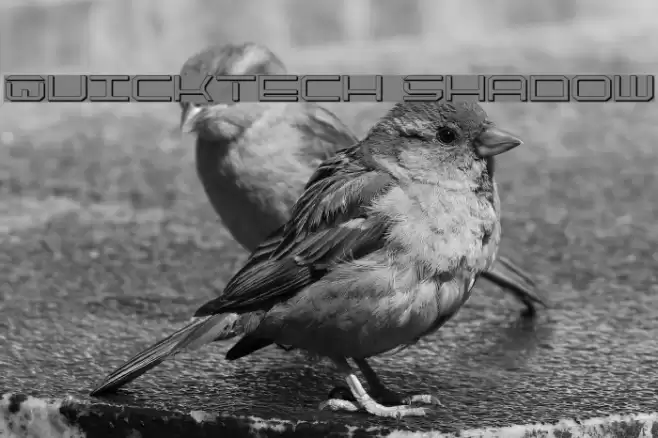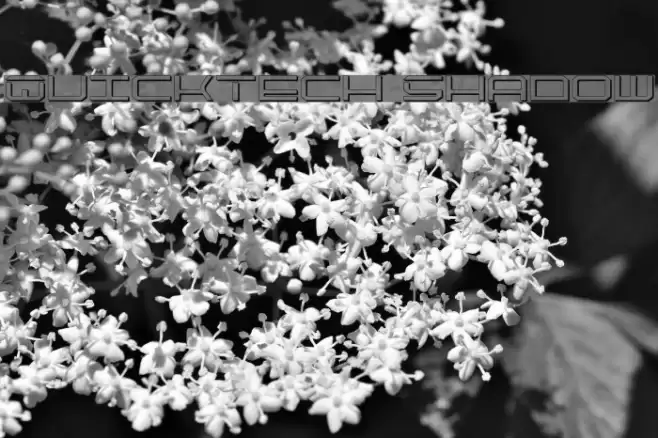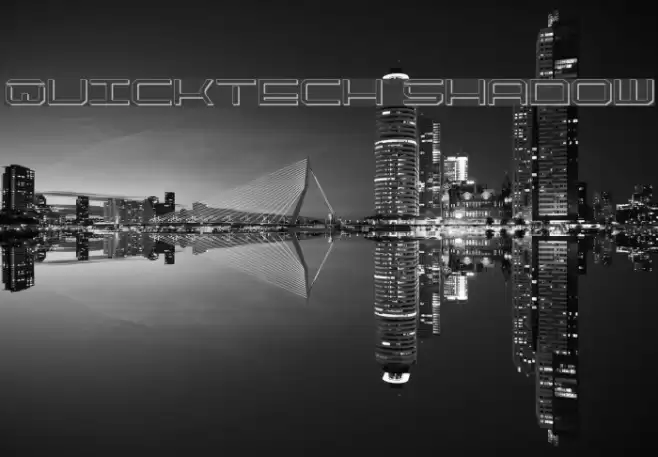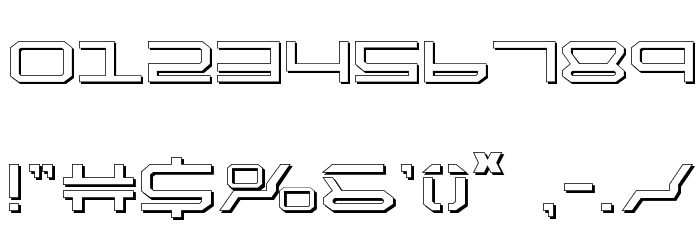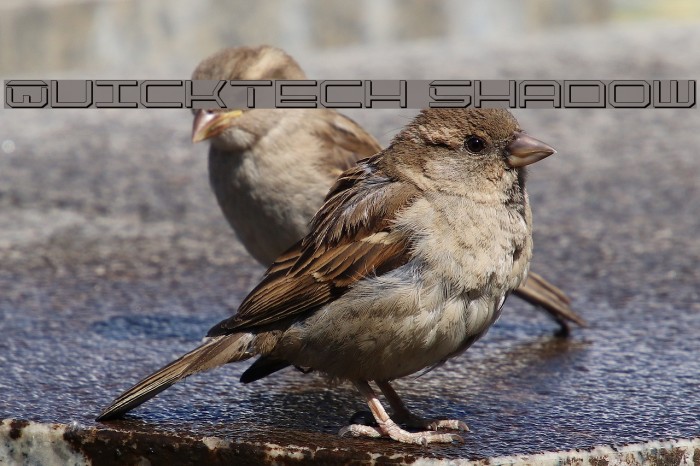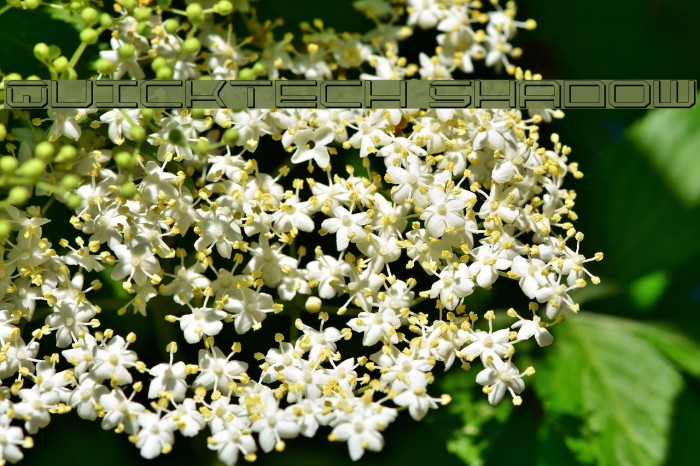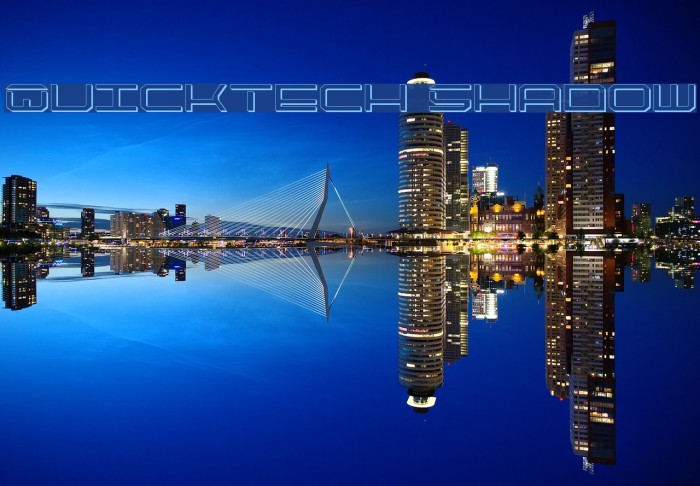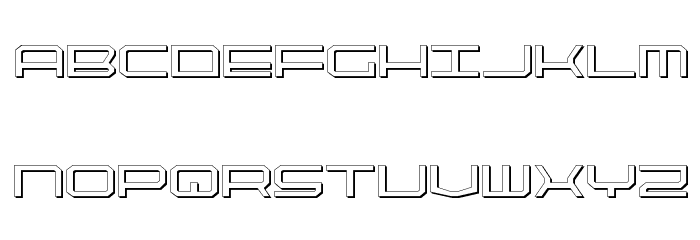
QuickTech Shadow Font
QuickTech Shadow Description
This font features a futuristic and geometric design, characterized by its sharp angles and clean lines. The characters are outlined, giving them a hollow appearance that adds a modern and tech-inspired feel. The uppercase and lowercase letters maintain a consistent style, with a uniform width and height that enhances readability. The numerals and special characters follow the same design principles, ensuring a cohesive look across all glyphs. This font is ideal for projects that require a cutting-edge and innovative aesthetic, such as technology branding, digital interfaces, and sci-fi themed designs.
A futuristic, geometric font with sharp angles and outlined characters from Images & Symbols fonts.
- Proposed Projects: Ideal for technology branding, digital interfaces, and sci-fi themed designs.